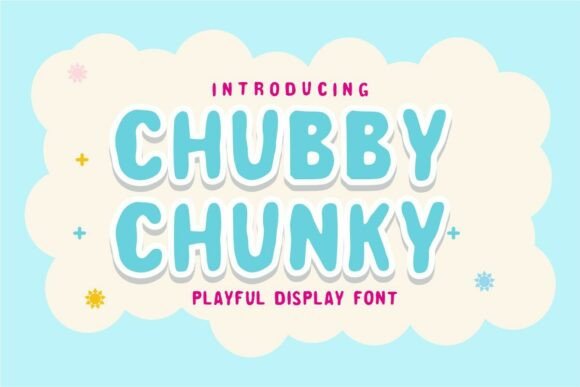
Chubby Chunky
Finding the right design elements can be challenging, but Chubby Chunky offers an exceptional collection that elevates your work instantly.
Whether you are creating POD (Print on Demand) products, wedding invitations, or social media graphics, Chubby Chunky is an ideal fit.